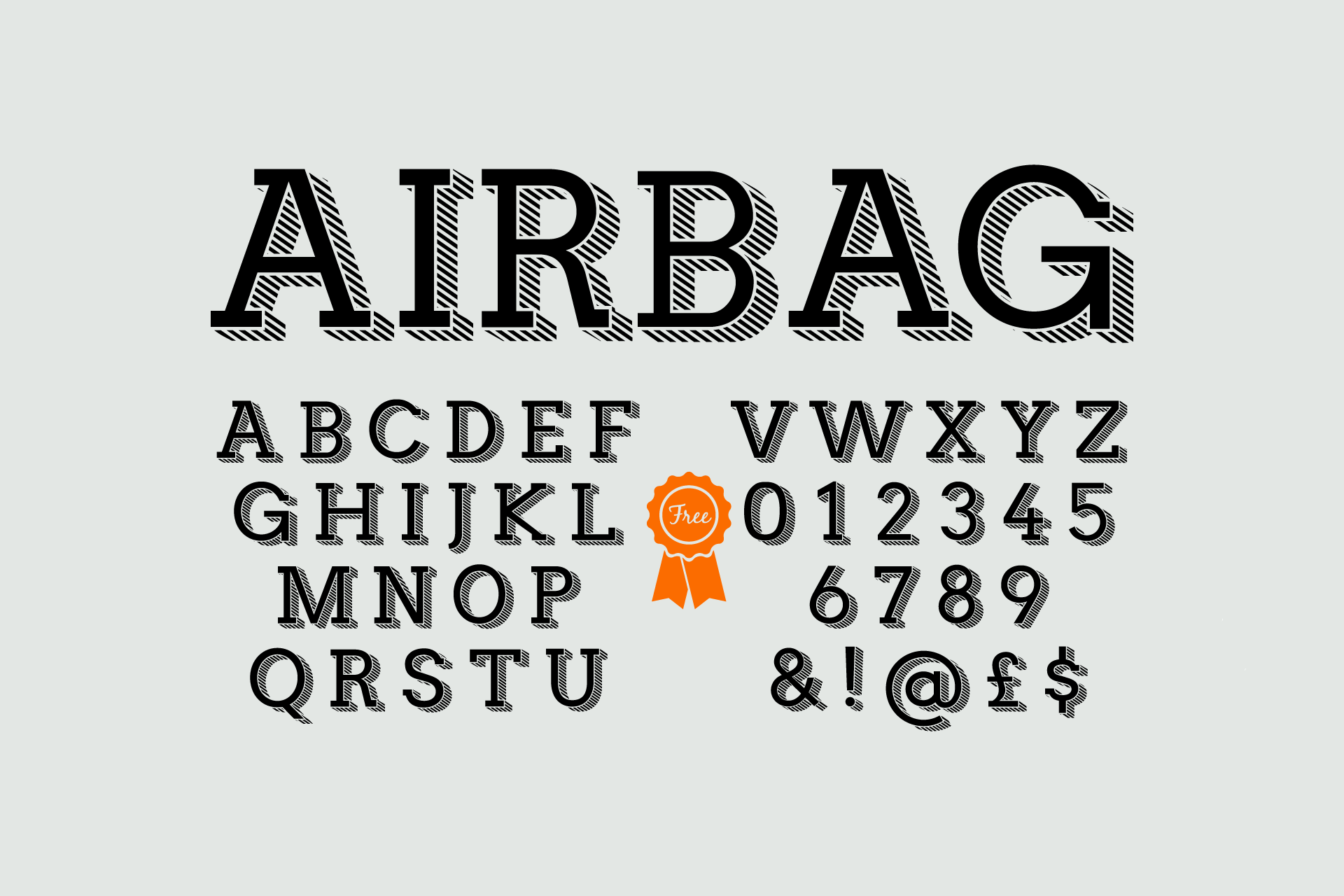
Slab Serif font Airbag Hipster
Airbag is a trendy display typeface aimed at achieving a stylish, clean, slab look and feel.
It has over 300 glyphs including uppercase/lowercase letters and numbers, Punctuation, Western and Central European characters in total it has over 380 glyphs.
The typeface works best at large point sizes, it's not really a good web font but looks great in print and on screen.